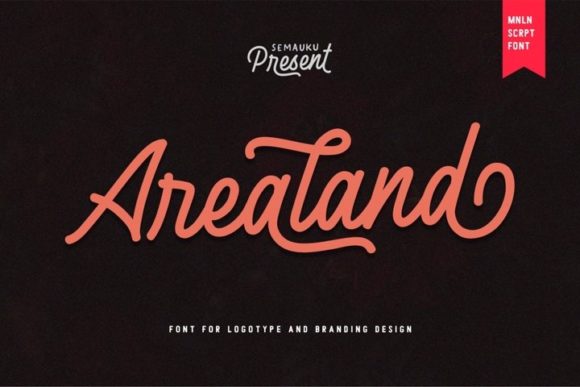
Are you yearning for a font that seamlessly blends elegance, sophistication, and a touch of playfulness? Look no further than Arealand Font, a captivating script font crafted by Semauku, renowned for its ability to transform ordinary designs into masterpieces.
Arealand Font is not just a collection of letters; it's an artistic symphony, a dance of characters that flow effortlessly across the page, leaving a trail of visual delight in their wake. Each letter is meticulously designed, with graceful curves and delicate flourishes that evoke a sense of artistry and craftsmanship.
This enchanting font is perfect for creating monogram logos that radiate personality and charm. Its inherent elegance lends itself beautifully to wedding invitations, adding a touch of timeless romance to your special day. Arealand Font also shines in branding and marketing materials, where its ability to capture attention and leave a lasting impression is unparalleled.